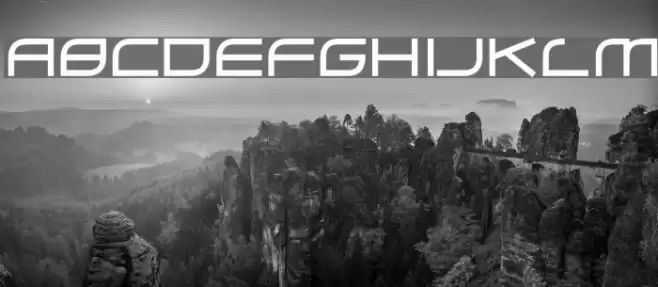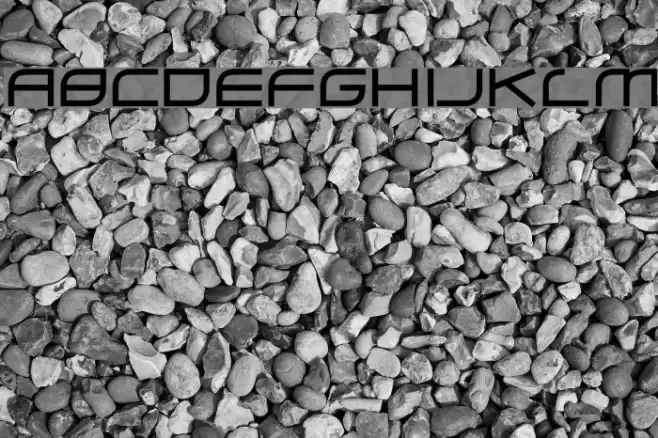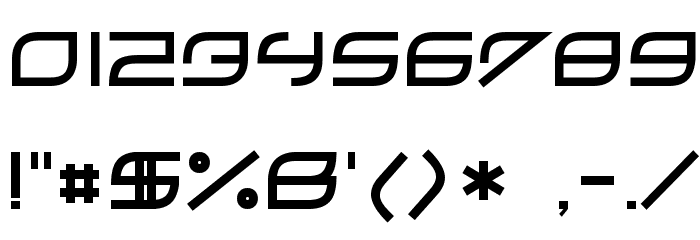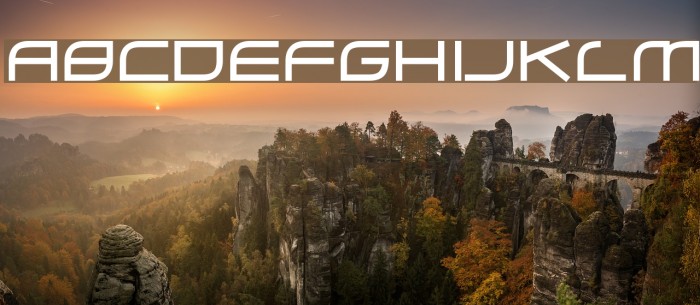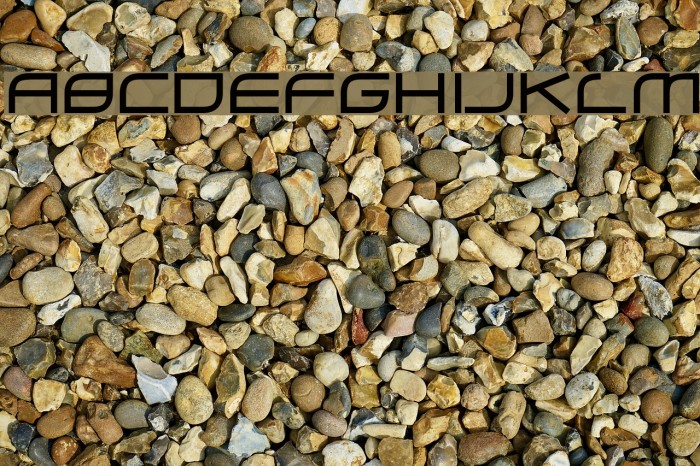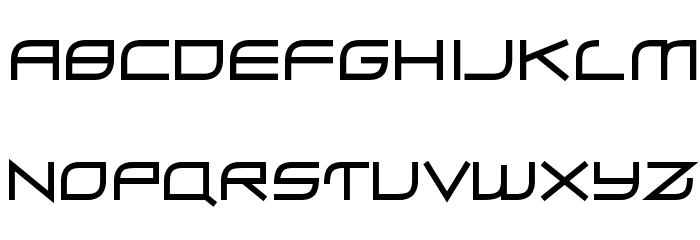
Zero Hour Font
Zero Hour Description
This font features a futuristic and geometric design, characterized by its clean lines and angular shapes. The uppercase letters are distinct with a modern aesthetic, while the lowercase letters maintain a consistent style that complements the uppercase. The numerals are bold and clear, making them easily readable. Special characters are designed to match the overall theme, providing a cohesive look across all elements. The font's unique style makes it suitable for projects that require a contemporary and tech-savvy appearance.
A futuristic, geometric font with clean lines and angular shapes from Sci-fi fonts.
- Proposed Projects: Ideal for technology branding, sci-fi themed designs, modern advertising, and digital interfaces.
- Use Case: Headlines, Logos, Digital Interfaces